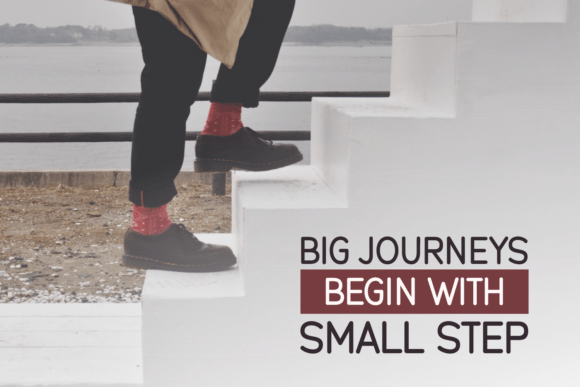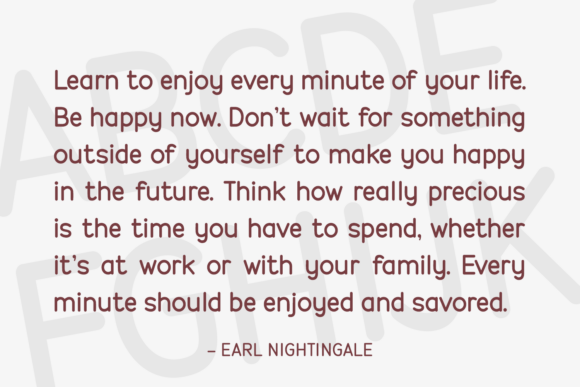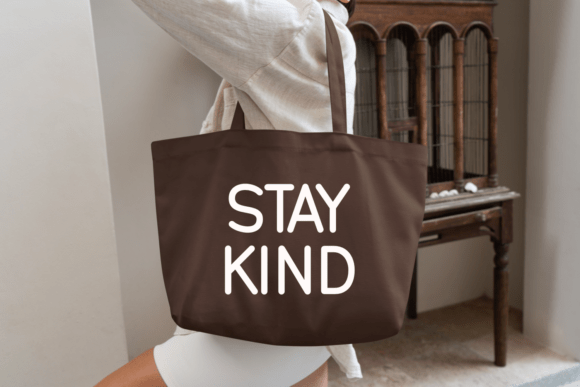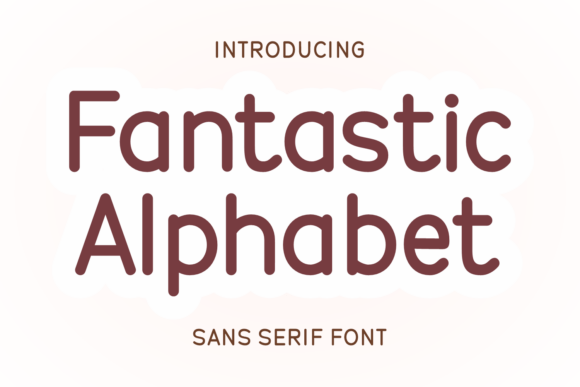
Fantastic Alphabet Font: A Friendly and Versatile Sans Serif for Creative Projects
Are you looking for a font that is both fun and functional? Look no further than the Fantastic Alphabet Font! This bold, rounded, and highly approachable sans serif font is perfect for a wide range of creative projects, from children’s educational materials to playful branding and app interfaces. In this article, we’ll take a closer look at the Fantastic Alphabet Font and explore its features, benefits, and uses.
A Friendly and Legible Design
The Fantastic Alphabet Font is characterized by its chunky, uniform letterforms with soft edges, giving it an extremely friendly, legible, and slightly playful aesthetic. The design is simple and clear, emphasizing readability and ease of use. This makes it an ideal choice for projects that require a strong, clear, and universally appealing sans serif font.
One of the key features of the Fantastic Alphabet Font is its rounded edges, which give it a soft and approachable look. This makes it perfect for children’s educational materials, where a friendly and engaging font is essential for keeping young learners engaged. The font’s chunky letterforms also make it easy to read, even at small sizes, making it a great choice for body text and captions.
The Fantastic Alphabet Font is a versatile font that can be used in a wide range of projects, including:
- Children’s educational materials: The font’s friendly and engaging design makes it perfect for textbooks, workbooks, and other educational materials.
- Playful branding: The font’s playful and approachable aesthetic makes it ideal for brands that want to convey a sense of fun and friendliness.
- App interfaces: The font’s clear and legible design makes it perfect for app interfaces, where a simple and easy-to-read font is essential.
- Headlines: The font’s bold and chunky letterforms make it perfect for high-impact headlines that need to grab attention.
The Fantastic Alphabet Font offers a range of benefits for designers and crafters, including:
- Ease of use: The font’s simple and clear design makes it easy to use, even for designers who are new to typography.
- Legibility: The font’s chunky letterforms and soft edges make it easy to read, even at small sizes.
- Versatility: The font can be used in a wide range of projects, from children’s educational materials to playful branding and app interfaces.
- Friendliness: The font’s friendly and approachable aesthetic makes it perfect for projects that require a warm and engaging tone.
Tips for Using the Fantastic Alphabet Font
Here are some tips for using the Fantastic Alphabet Font in your projects:
- Use it for headlines: The font’s bold and chunky letterforms make it perfect for high-impact headlines that need to grab attention.
- Pair it with other fonts: The Fantastic Alphabet Font pairs well with other sans serif fonts, such as Arial or Helvetica.
- Use it for body text: The font’s clear and legible design makes it perfect for body text and captions.
- Experiment with colors: The font’s friendly and approachable aesthetic makes it perfect for use with bright and bold colors.
In conclusion, the Fantastic Alphabet Font is a friendly and versatile sans serif font that is perfect for a wide range of creative projects. Its chunky, uniform letterforms with soft edges give it an extremely friendly, legible, and slightly playful aesthetic, making it ideal for children’s educational materials, playful branding, app interfaces, and high-impact headlines. With its ease of use, legibility, and versatility, the Fantastic Alphabet Font is a great choice for designers and crafters looking for a strong, clear, and universally appealing sans serif font.